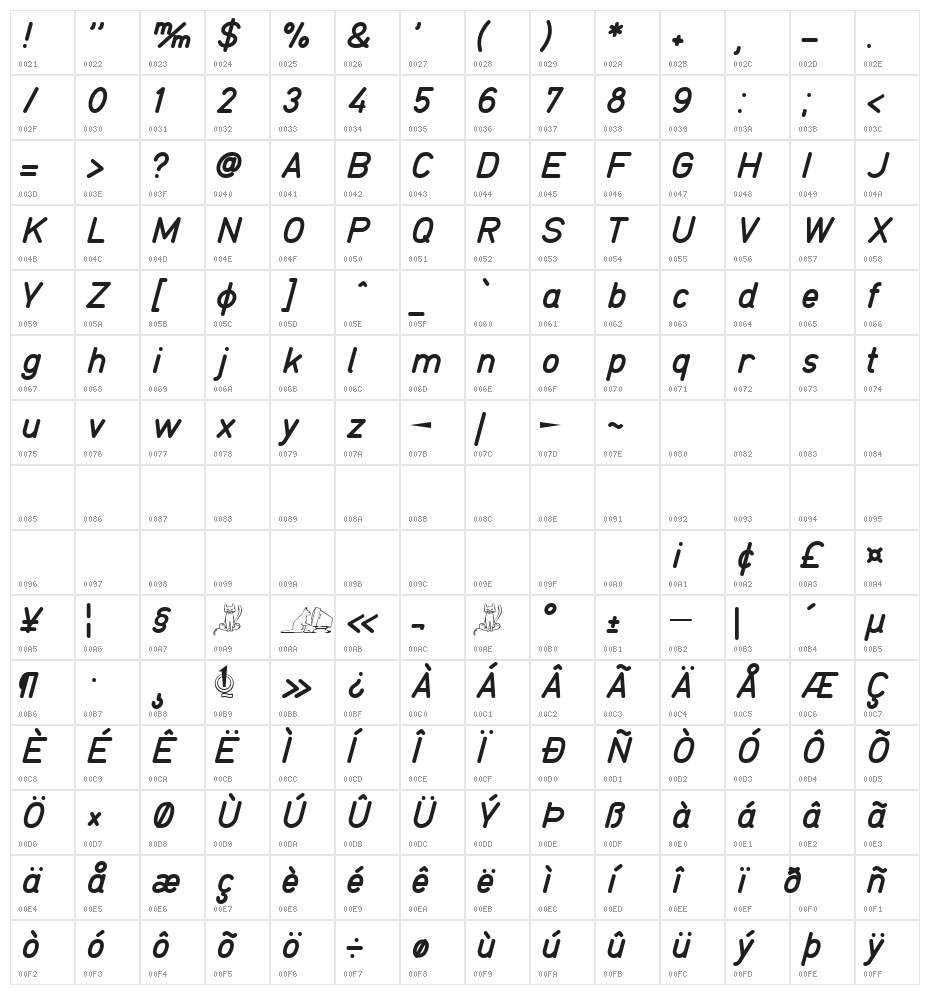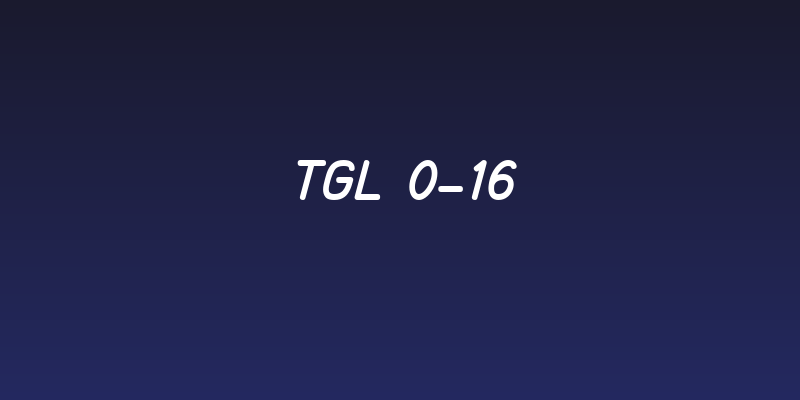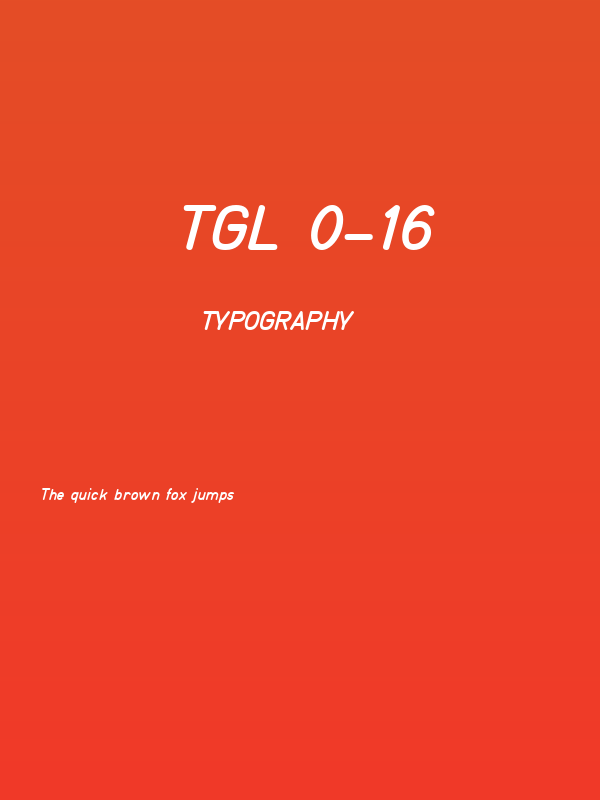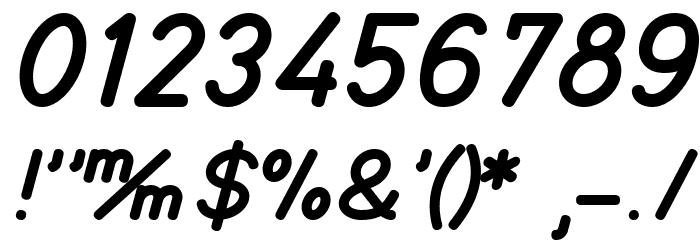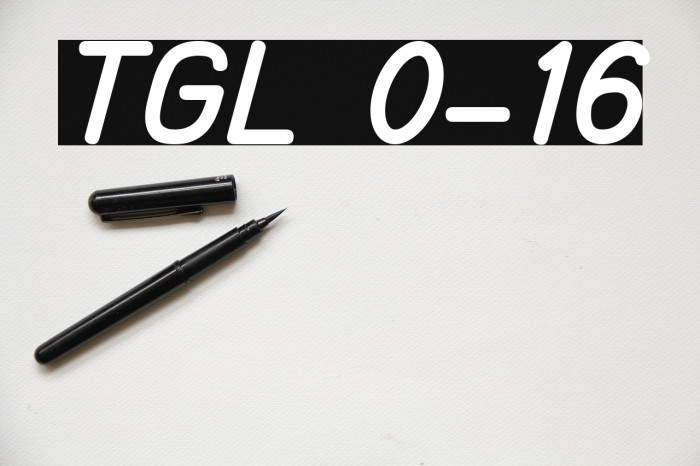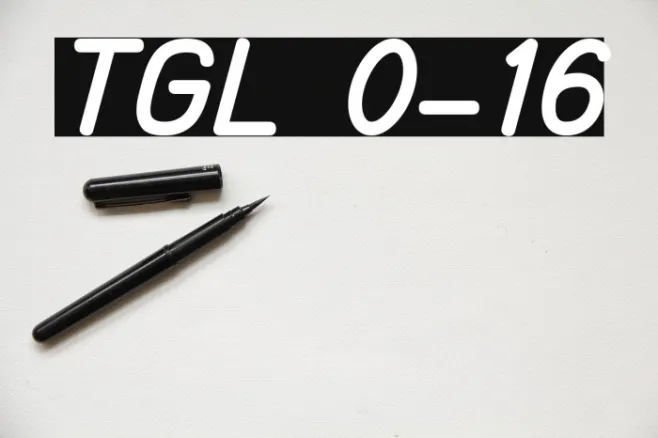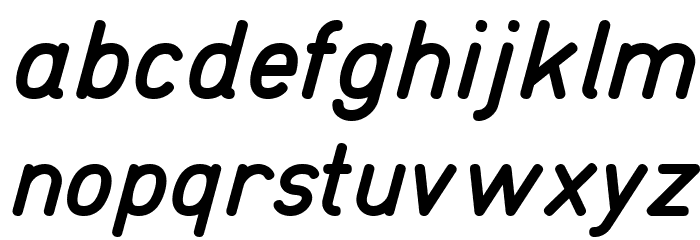
TGL 0-16 Font
TGL 0-16 Description
This font features a clean and modern design with a slight slant, giving it a dynamic and forward-moving appearance. The characters are well-rounded and smooth, with consistent stroke widths that provide a harmonious look. The uppercase and lowercase letters are well-balanced, making it suitable for both headings and body text. The numerals are clear and legible, maintaining the same style as the letters. Special characters are distinct and easily recognizable, adding to the font's versatility. Overall, this font exudes a contemporary feel while maintaining readability.